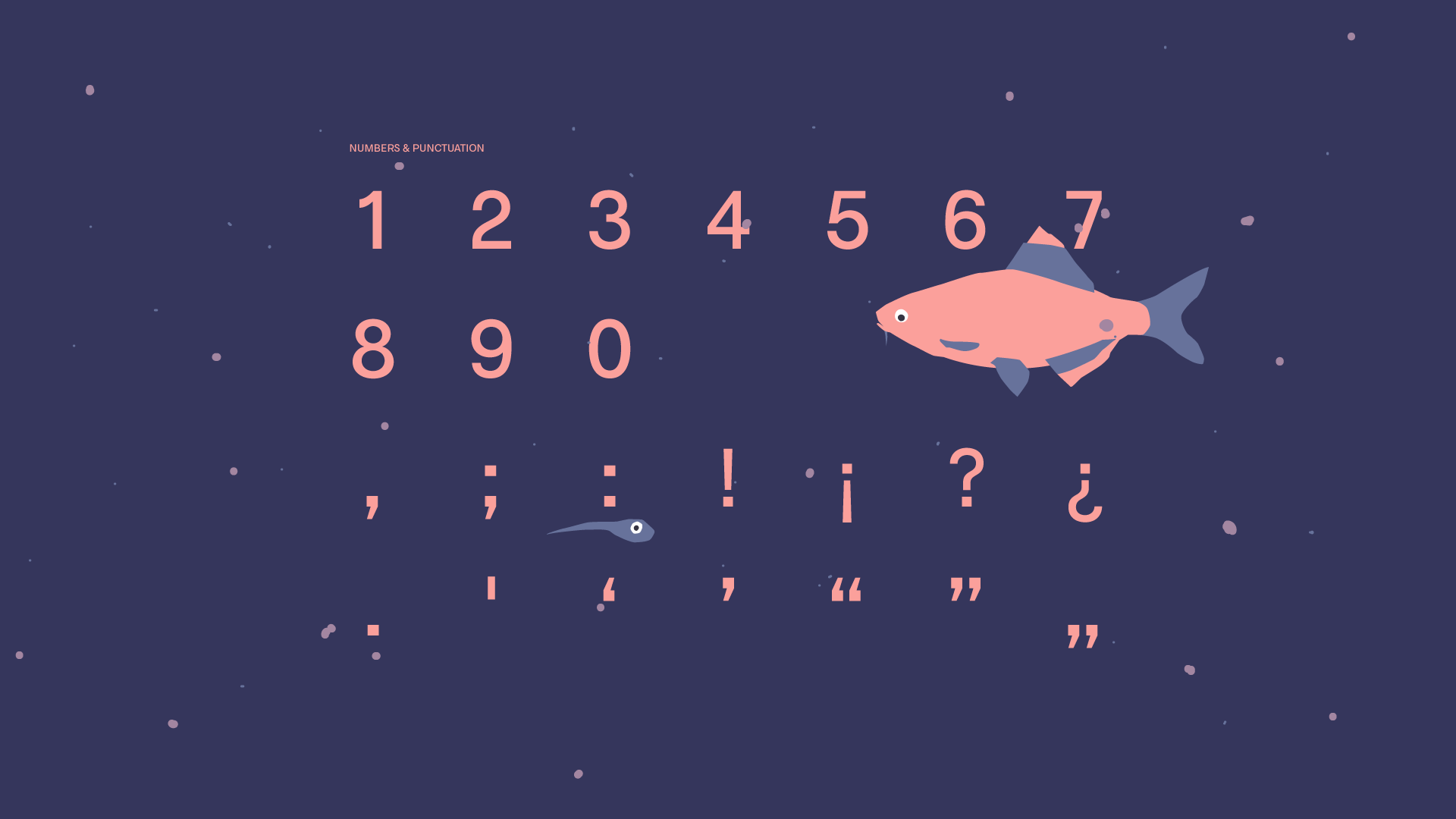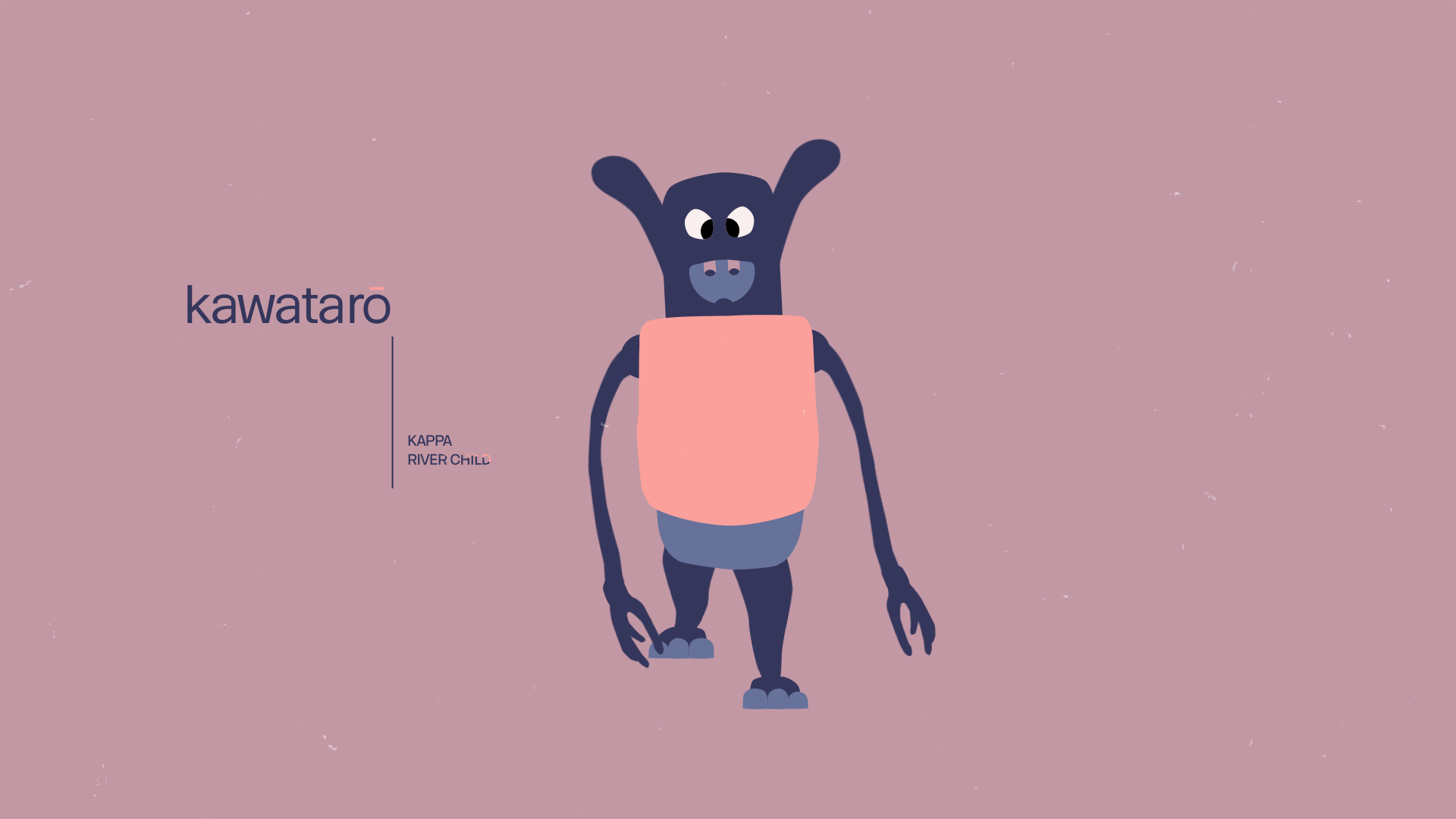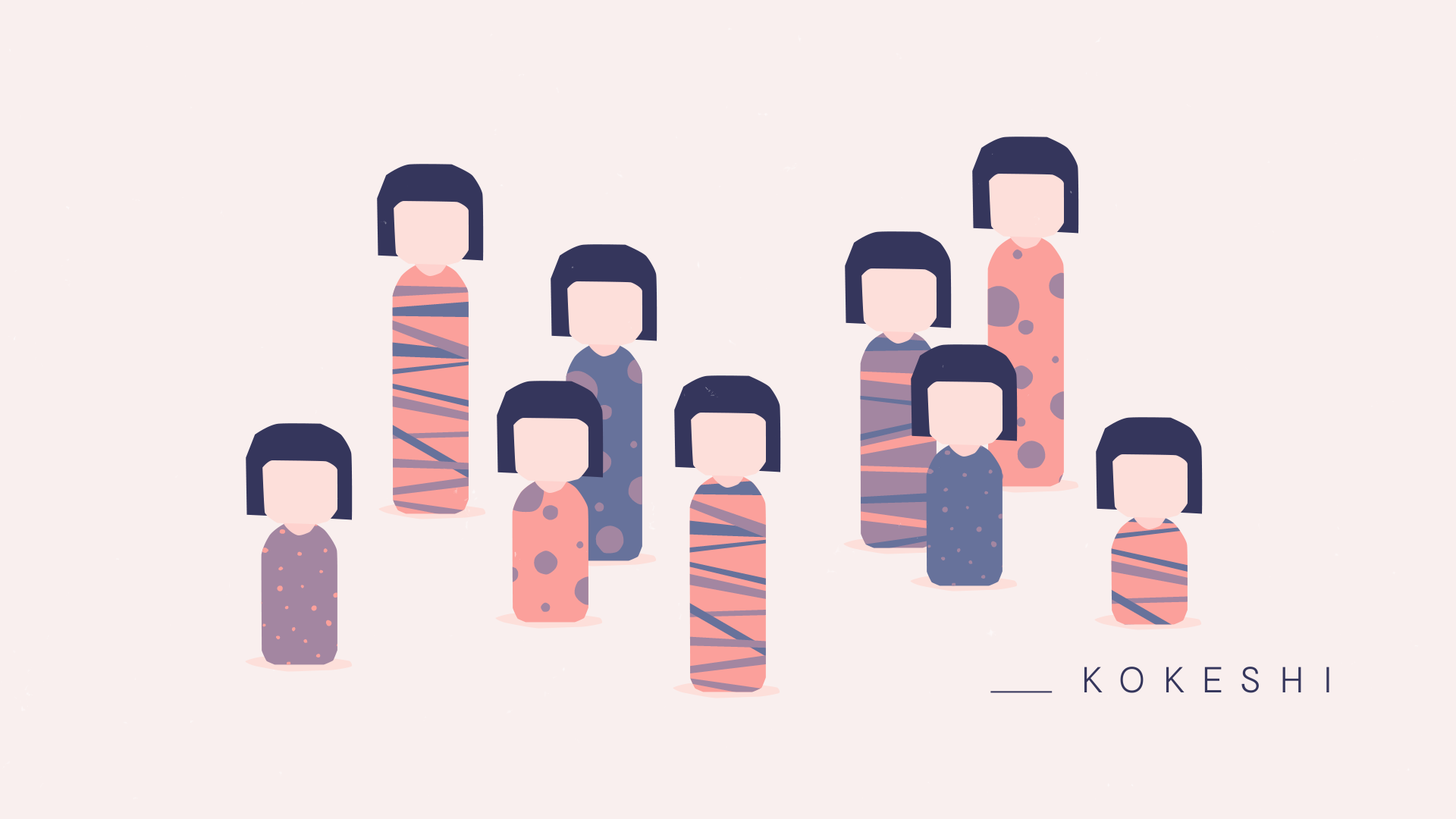
Okomito is a sans serif inspired by the classic typefaces that were imbued with a sense of functionality, boldness and industrial strength.
The animated version aims to blend a quick, explosive expression with a soft and wavy feel. It includes the entire family of 9 weights and styles. Simply use the built-in dropdown to select your favorite weight.
Okomito is available as an animated and static typeface.